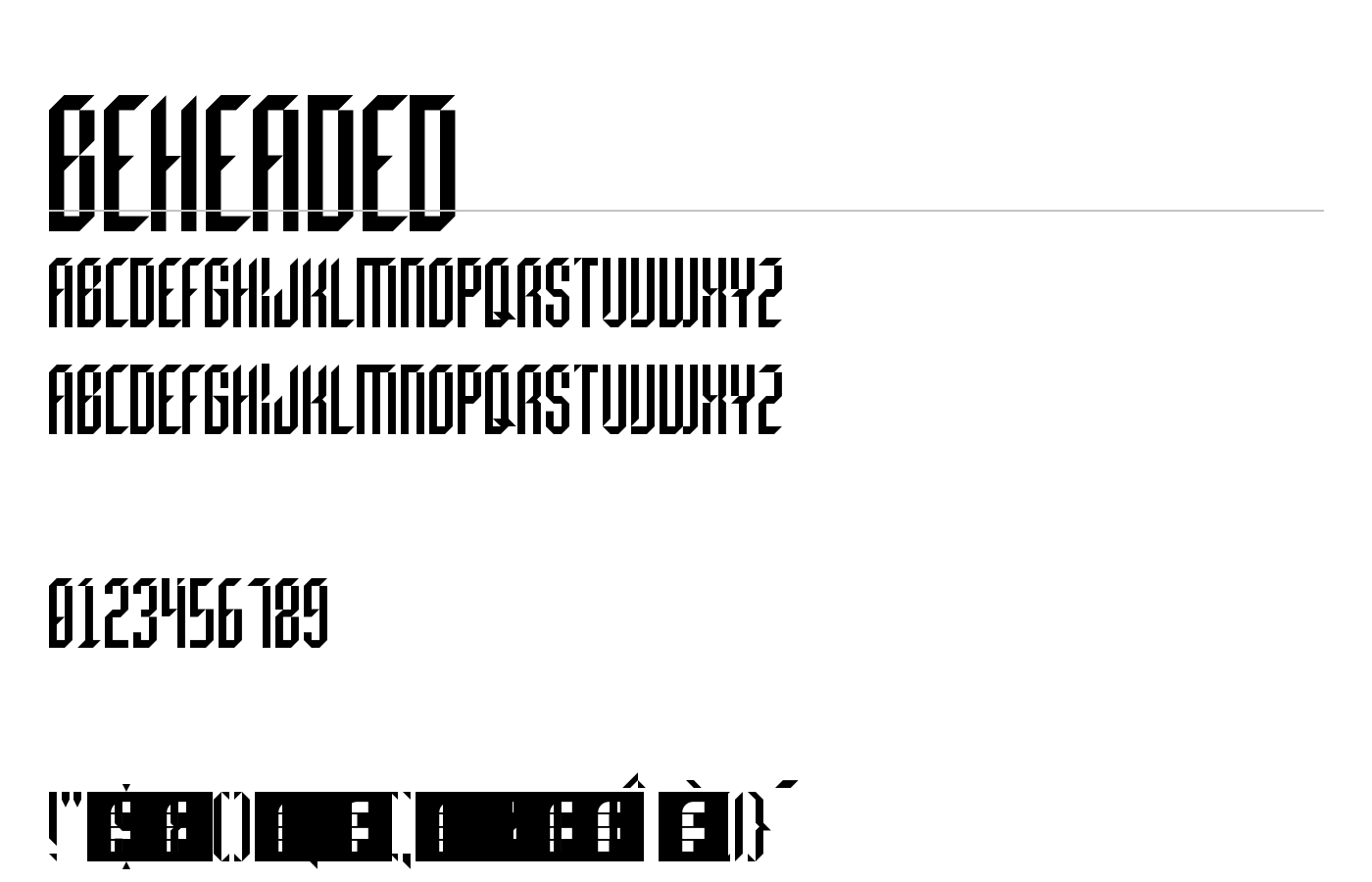
Beheaded Font is a bold, condensed sans serif with a striking, angular design that gives it a futuristic and edgy feel. Its sharp geometric strokes and tall, narrow letterforms make it ideal for eye-catching headlines and branding that seeks a modern, intense, or sci-fi vibe. This font works best in graphic design projects where a strong, impactful presence is needed, such as posters, logos, and display text.
Beheaded Font
About Beheaded Font
| Font family | Beheaded Font |
| Designer | André Felipe |